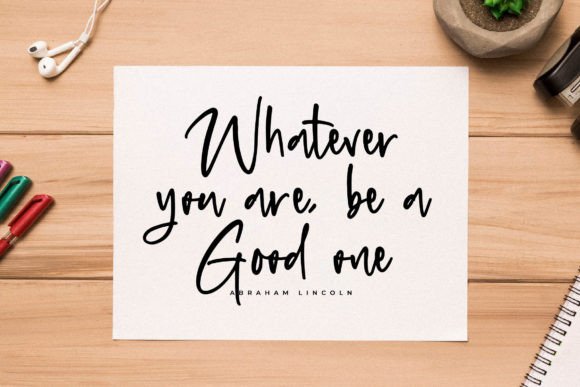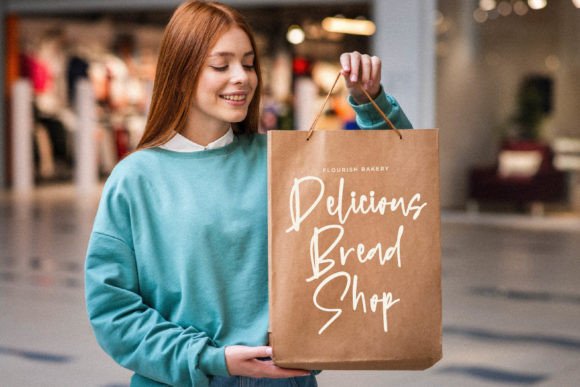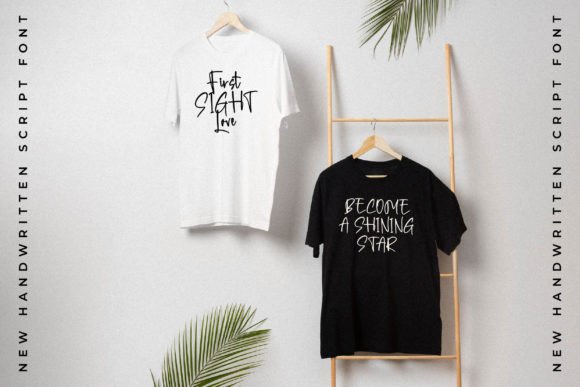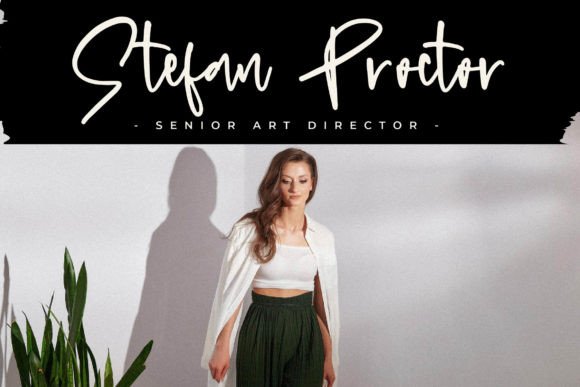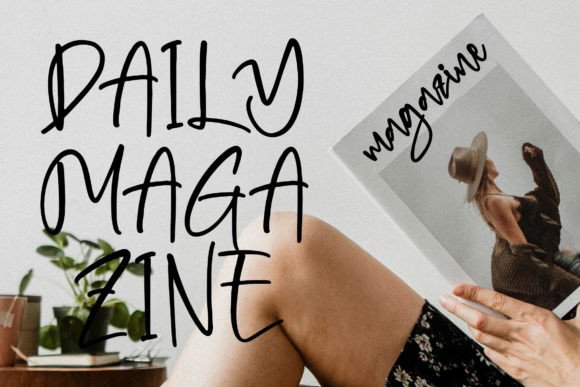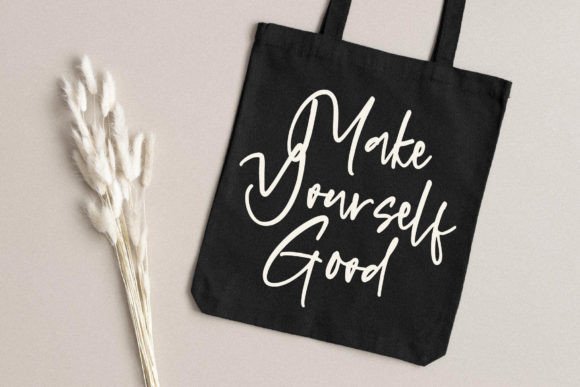
Introduction to Harvest Something Font
Have you ever been working on a creative project, pouring your heart and soul into it, only to be held back by the perfect font? For many designers, finding that elusive perfect font can be a frustrating experience. But what if I told you that there’s a new kid on the block that’s about to change the game? Say hello to the beautiful Harvest Something Font, a stunning handwritten script font that’s perfect for any project that needs a touch of elegance and sophistication.
As a designer, you know how valuable a high-quality font can be. Whether you’re working on a logo, branding project, or homeware design, the right font can make all the difference. And that’s exactly what the Harvest Something Font offers – a beautiful, free download that’s perfect for any creative project. With a transparent background and a design resource that’s second to none, you’ll be able to take your designs to the next level.
Key Features of Harvest Something Font
- High-quality design resource ideal for creative projects, including invitations, posters, and social media graphics.
- Features a transparent background, allowing for seamless integration with various design elements and backgrounds.
- Includes a comprehensive character set, covering a wide range of languages and characters.
- Unique, hand-drawn design style, adding a personal touch to any creative project.
Honest Review: Harvest Something Font
I recently stumbled upon the Harvest Something Font while searching for design resources to elevate my next creative project. As a designer, I’m always on the lookout for high-quality fonts that can help bring my vision to life.
What works well about Harvest Something Font is its unique blend of rustic and whimsical elements. The font features a variety of characters, including uppercase and lowercase letters, numbers, and punctuation marks. The designer has also included a transparent background, making it easy to customize and integrate into any design.
- ✨ High-quality design: The font is well-crafted and visually appealing.
- ✨ Transparent background: The font’s transparent background makes it easy to customize and integrate into any design.
- ⚠️ Limited language support: The font only includes characters for the English language.
- ⚠️ Not ideal for large blocks of text: The font is best suited for decorative or highlight text.
Overall, I’m impressed with the Harvest Something Font and would recommend it to designers working on creative projects that require a unique and eye-catching font.
The Harvest Something Font is a high-quality, free download that can add a touch of elegance to any creative project. With its unique design and transparent background, it’s perfect for designers looking for a versatile font.
To get the most out of Harvest Something Font, try experimenting with different font sizes, colors, and styles. You can also use it in combination with other design elements, such as images and graphics, to create a unique and eye-catching design.
Harvest Something Font is perfect for a variety of creative projects, including:
- Social media graphics and ads